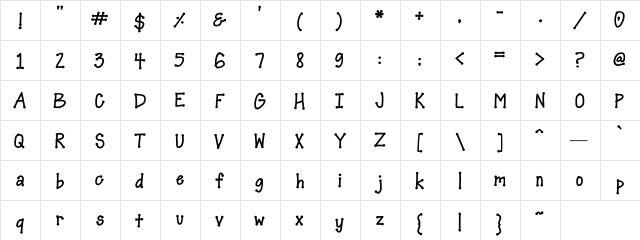
Scrap Marker Regular
Design Context for Scrap Marker Typeface
Scrap Marker is a composed and adaptable typeface that performs quietly and consistently across a wide range of design contexts.